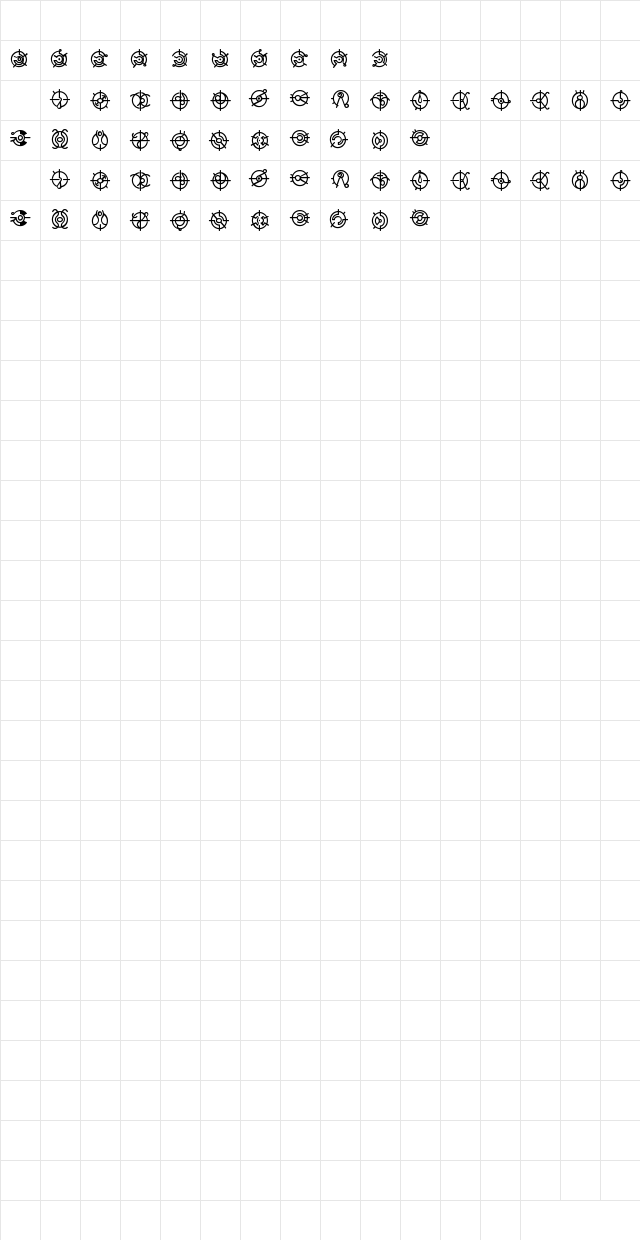
Complete Forerunner Regular glyph index. Displaying only characters natively supported by Forerunner Regular font.
Forerunner is a composed and adaptable typeface that performs quietly and consistently across a wide range of design contexts.